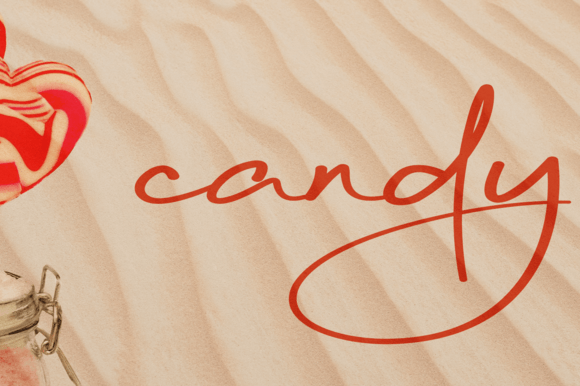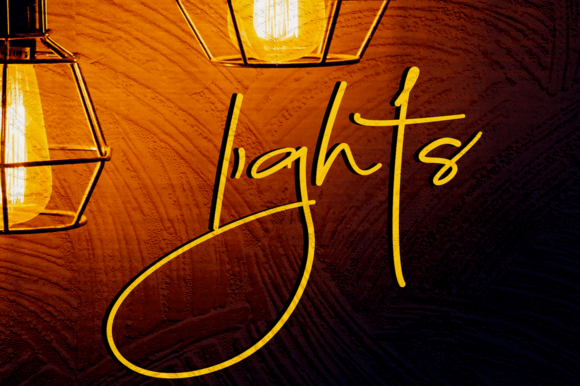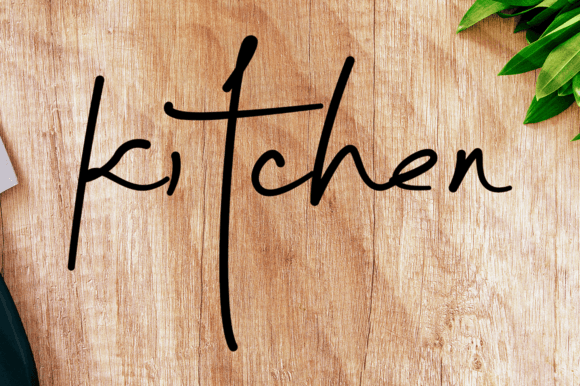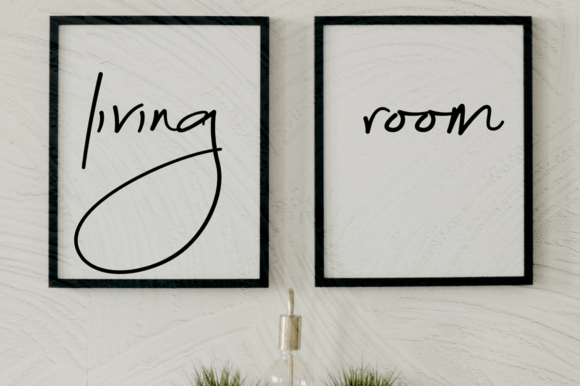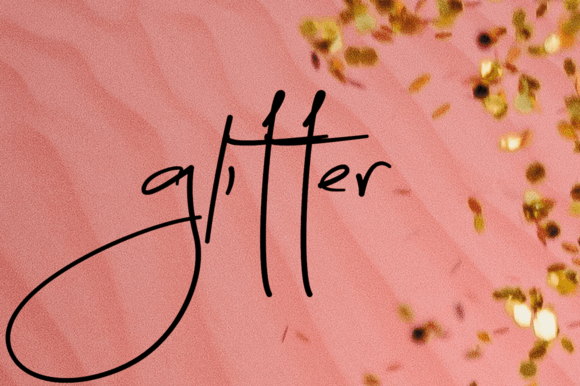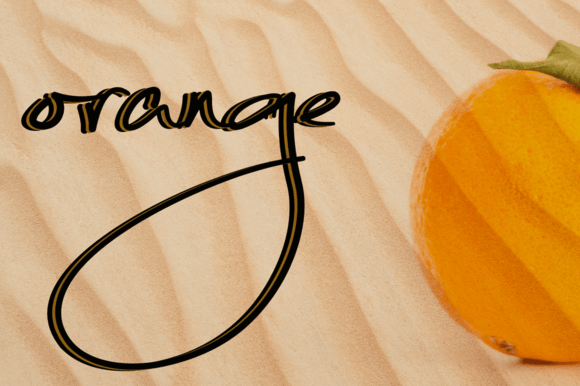
Coffee Font: Elevate Your Designs with a Touch of Elegance
Are you a designer or crafter looking for a font that can add a touch of sophistication and charm to your creative projects? Look no further than Coffee Font, an elegant, simple, and attractive handwriting font that is sure to bring your ideas to life.
The Charm of Coffee Font
Coffee Font is a beautifully crafted handwriting font that exudes elegance and simplicity. Its smooth, flowing lines and delicate curves make it perfect for a wide range of design applications, from wedding invitations and branding materials to social media graphics and craft projects.
What sets Coffee Font apart is its unique ability to add a touch of warmth and personality to any design. Its handwritten feel makes it instantly relatable and engaging, while its clean and simple lines ensure that it remains highly legible, even at smaller sizes.
Why Choose Coffee Font?
So why should you choose Coffee Font for your next design project? Here are just a few reasons why this beautiful font is sure to become a favorite:
- Elegant and sophisticated: Coffee Font has a timeless, elegant feel that is perfect for designs that require a touch of sophistication.
- Simple and versatile: Its simple, clean lines make Coffee Font highly versatile, allowing it to be used in a wide range of design applications.
- Attractive and engaging: The handwritten feel of Coffee Font makes it instantly relatable and engaging, perfect for designs that need to connect with their audience.
- Easy to read: Despite its elegant feel, Coffee Font remains highly legible, even at smaller sizes.
Using Coffee Font in Your Designs
Coffee Font is incredibly easy to use and can be incorporated into a wide range of design projects. Here are a few ideas to get you started:
- Wedding invitations and stationery: Coffee Font is perfect for wedding invitations, save-the-date cards, and other stationery items.
- Branding and packaging: Use Coffee Font to add a touch of elegance and sophistication to your branding materials, including business cards, letterheads, and packaging.
- Social media graphics: Coffee Font is perfect for social media graphics, including Facebook and Instagram posts, Twitter headers, and more.
- Craft projects: Coffee Font is also great for craft projects, such as scrapbooking, journaling, and card making.
Tips for Getting the Most Out of Coffee Font
To get the most out of Coffee Font, here are a few tips to keep in mind:
- Use it sparingly: Coffee Font is best used sparingly, as a accent font to add a touch of elegance and sophistication to your designs.
- Experiment with colors: Coffee Font looks great in a range of colors, from bold and bright to soft and pastel.
- Pair it with other fonts: Coffee Font pairs well with a range of other fonts, including sans-serif and serif fonts.
Coffee Font is a beautiful, elegant, and versatile handwriting font that is sure to elevate your designs and bring your creative ideas to life. With its smooth, flowing lines and delicate curves, it’s perfect for a wide range of design applications, from wedding invitations and branding materials to social media graphics and craft projects. So why not give Coffee Font a try and see the difference it can make?